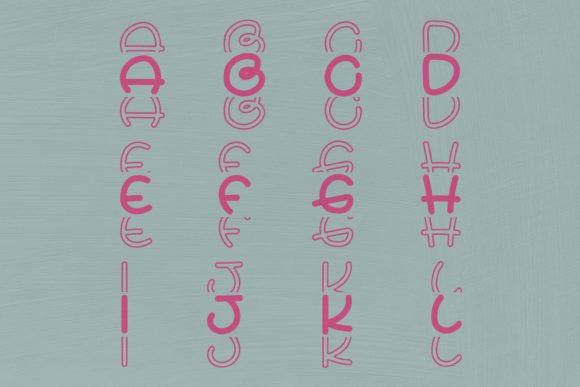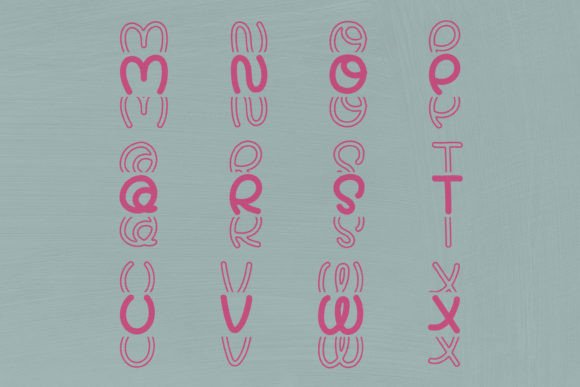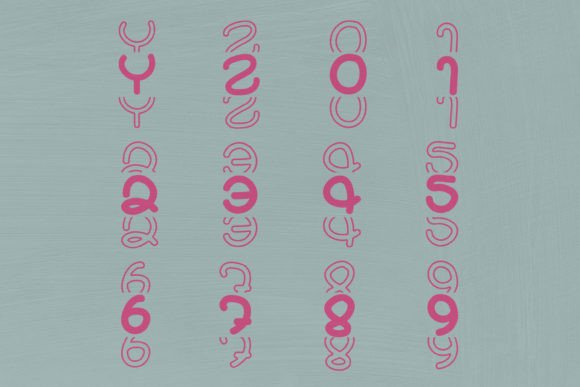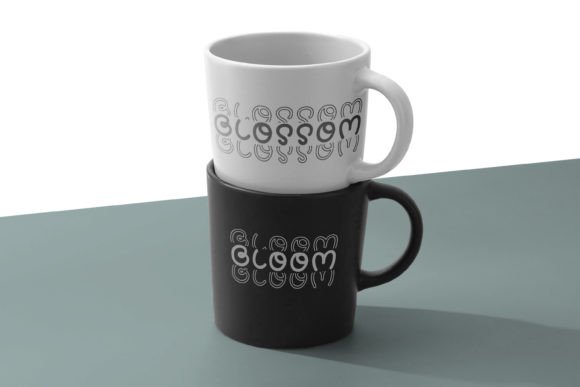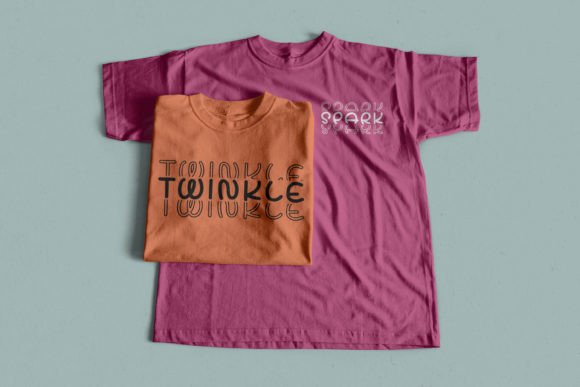
Introduction to Quirky Mirror Font
Have you ever found yourself staring at a blank canvas, searching for the perfect touch to bring your creative project to life? That’s exactly what happened to me last weekend, when I was working on a DIY craft for a friend’s birthday. I had all the materials I needed, but something was missing – a unique and eye-catching font that would make the design truly special. That’s when I stumbled upon the Quirky Mirror Font, and my creative world was turned upside down.
This incredibly cool font is a game-changer for designers and crafters alike. With its elegant and quirky design, it’s the perfect addition to any project that requires a touch of whimsy. Whether you’re working on a custom design, a DIY craft, or just need a lovely font for your next creative project, the Quirky Mirror Font is an amazing choice.
Key Features of Quirky Mirror Font
- Unique, hand-drawn design with a touch of whimsy, perfect for creative projects
- High-quality font with a transparent background, ideal for designers who want to add a personal touch
- Perfect for adding a quirky touch to posters, flyers, and other print materials
- Also suitable for digital projects, such as website headers, social media graphics, and more
Honest Review: Quirky Mirror Font
As a designer, I’m always on the lookout for unique and high-quality design resources to elevate my creative projects. The Quirky Mirror Font caught my attention, and I decided to give it a try.
- ✨ Beautifully crafted letterforms with intricate details, perfect for adding a touch of elegance to my designs.
- ⚠️ The font may not be suitable for large-scale text due to its ornate design.
- ⚠️ Some characters may not be perfectly legible at smaller font sizes, so be sure to test it out before using.
Overall, I’m impressed with the Quirky Mirror Font’s unique character and high quality. While it may have some limitations, I think it’s a valuable addition to any designer’s toolkit, especially for creative projects where a touch of whimsy is needed.